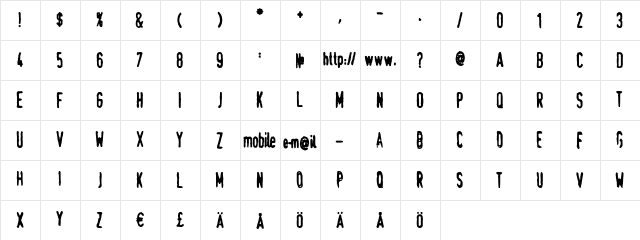
Swede-Trauma Regular
Design Context for Swede-Trauma Typeface
Swede-Trauma takes a measured approach to typography — its balanced proportions and neutral character make it a reliable workhorse for both digital and print work.